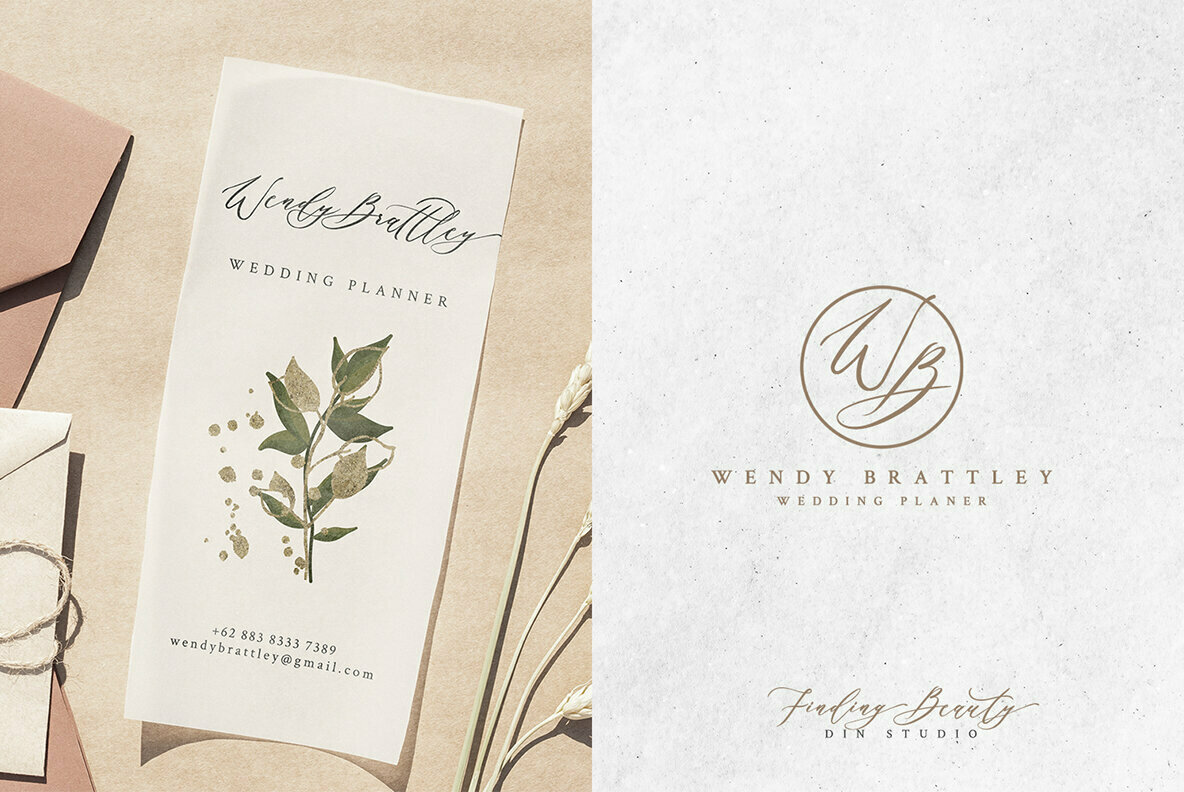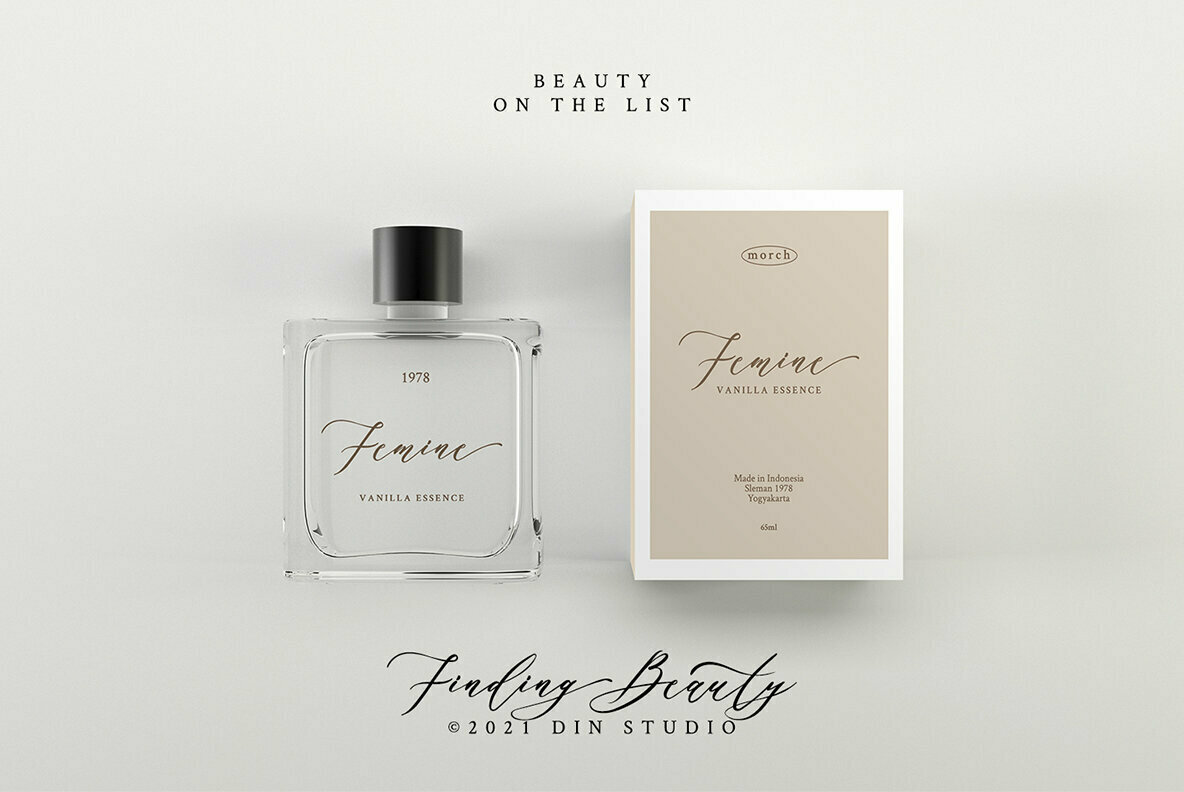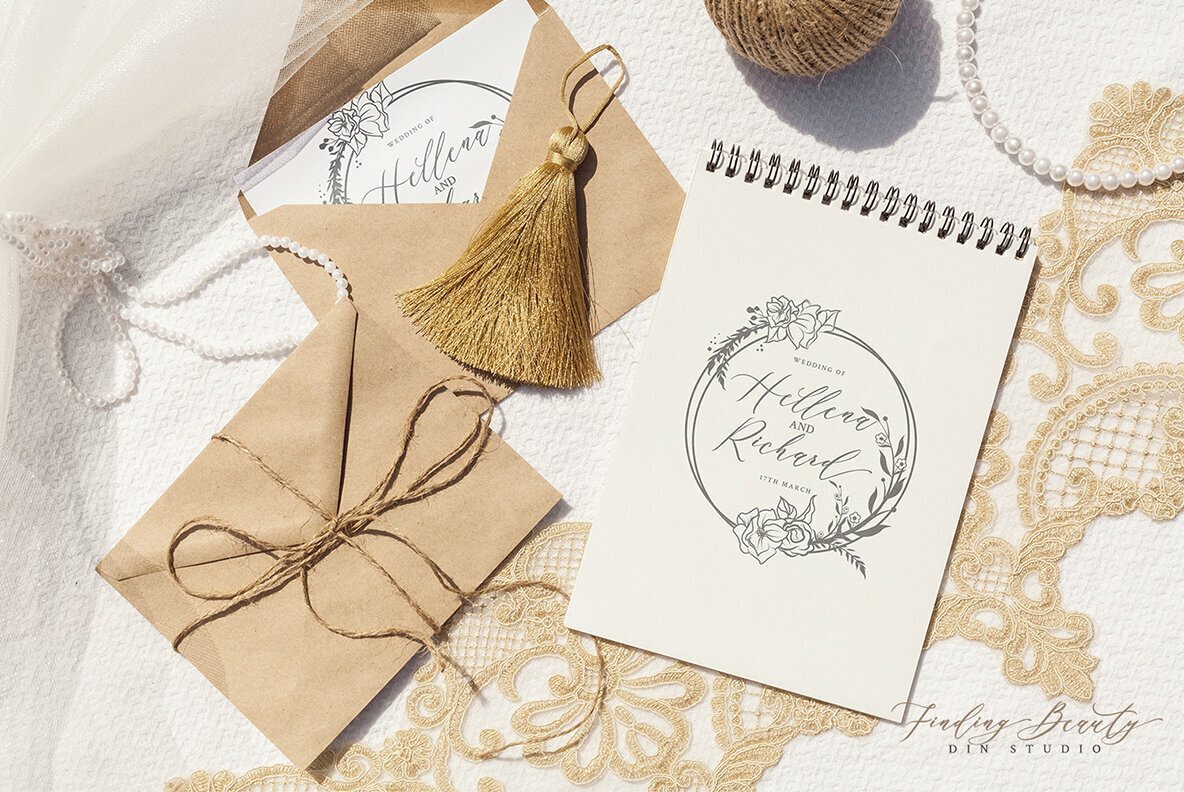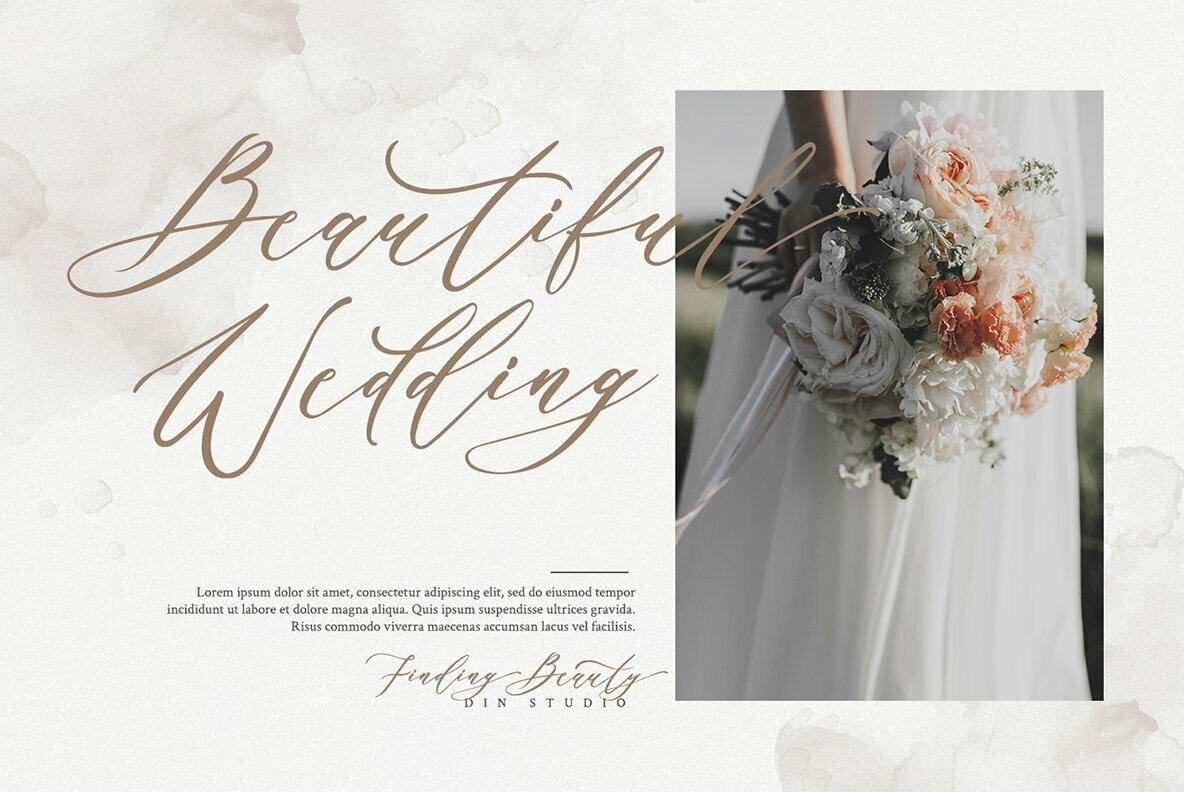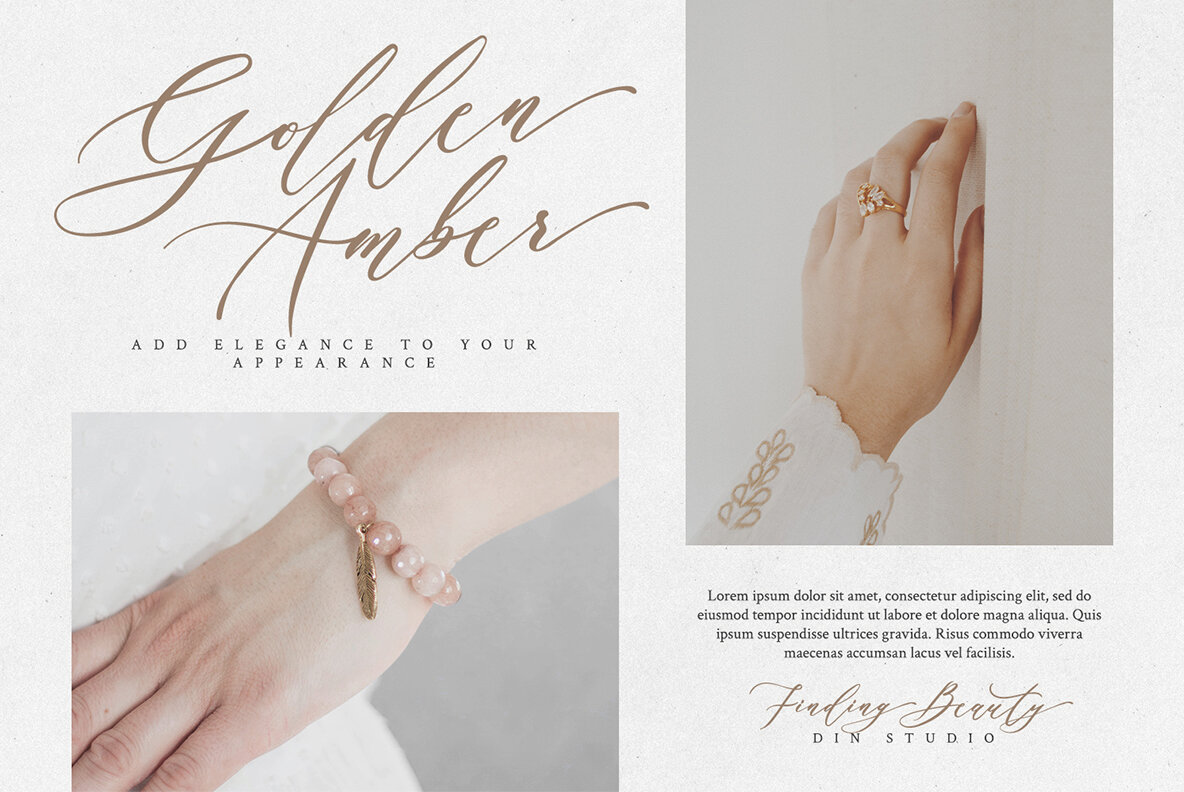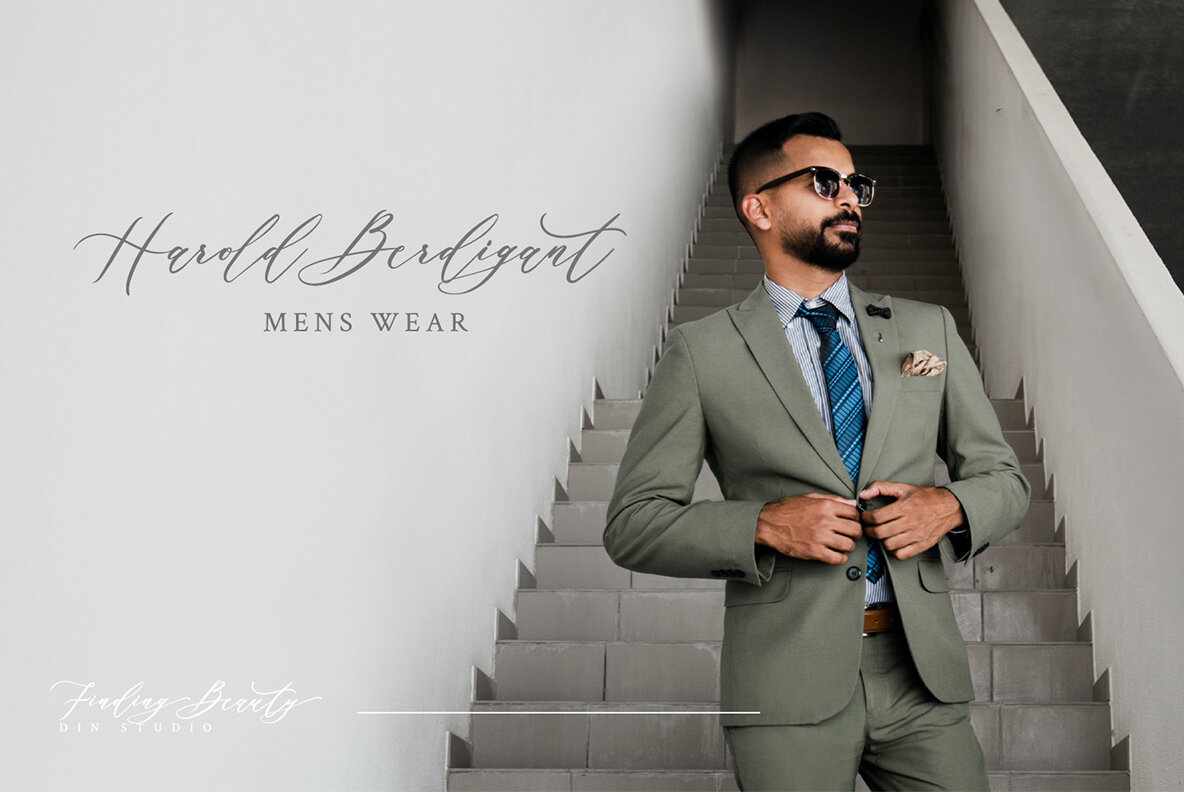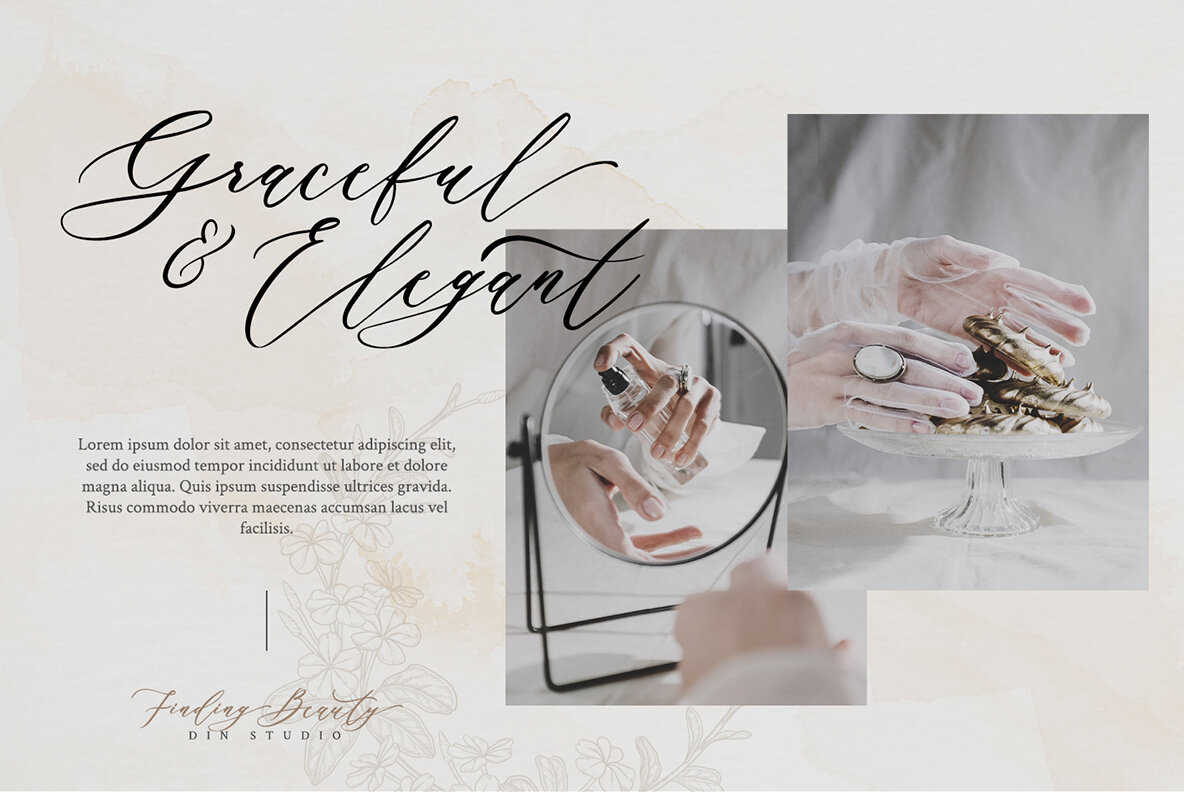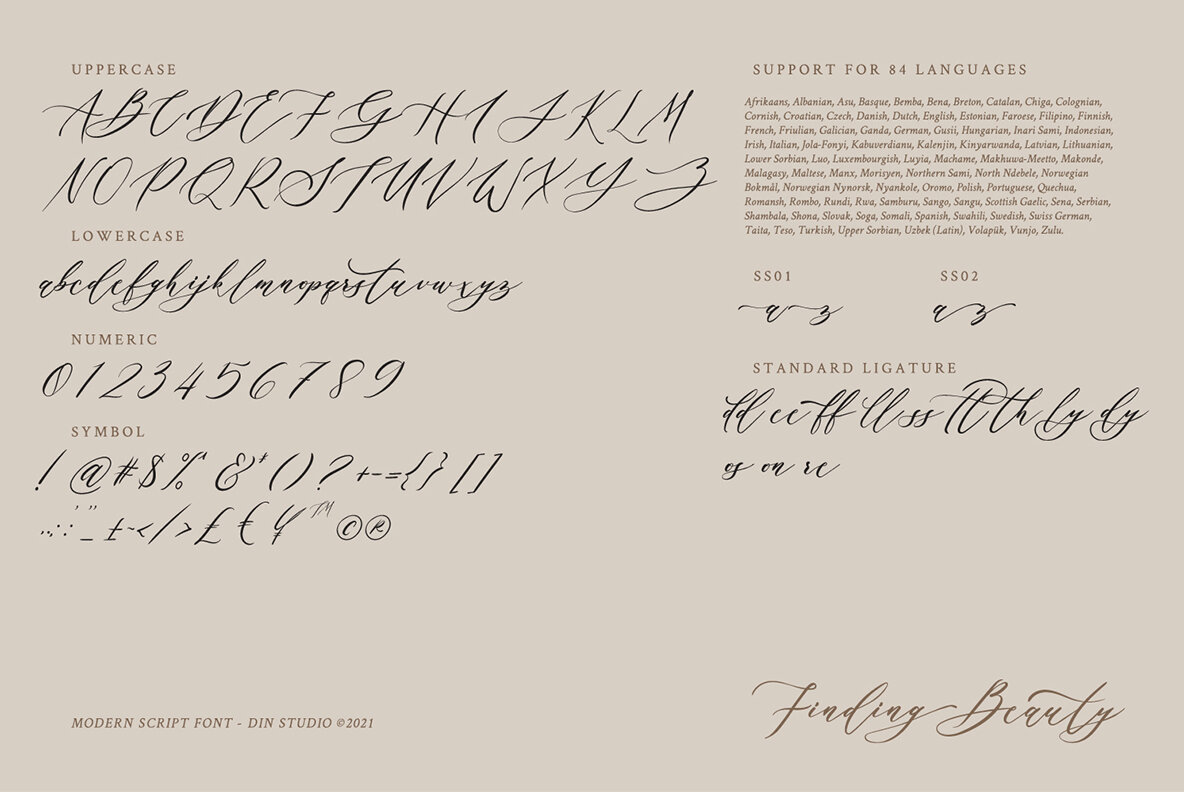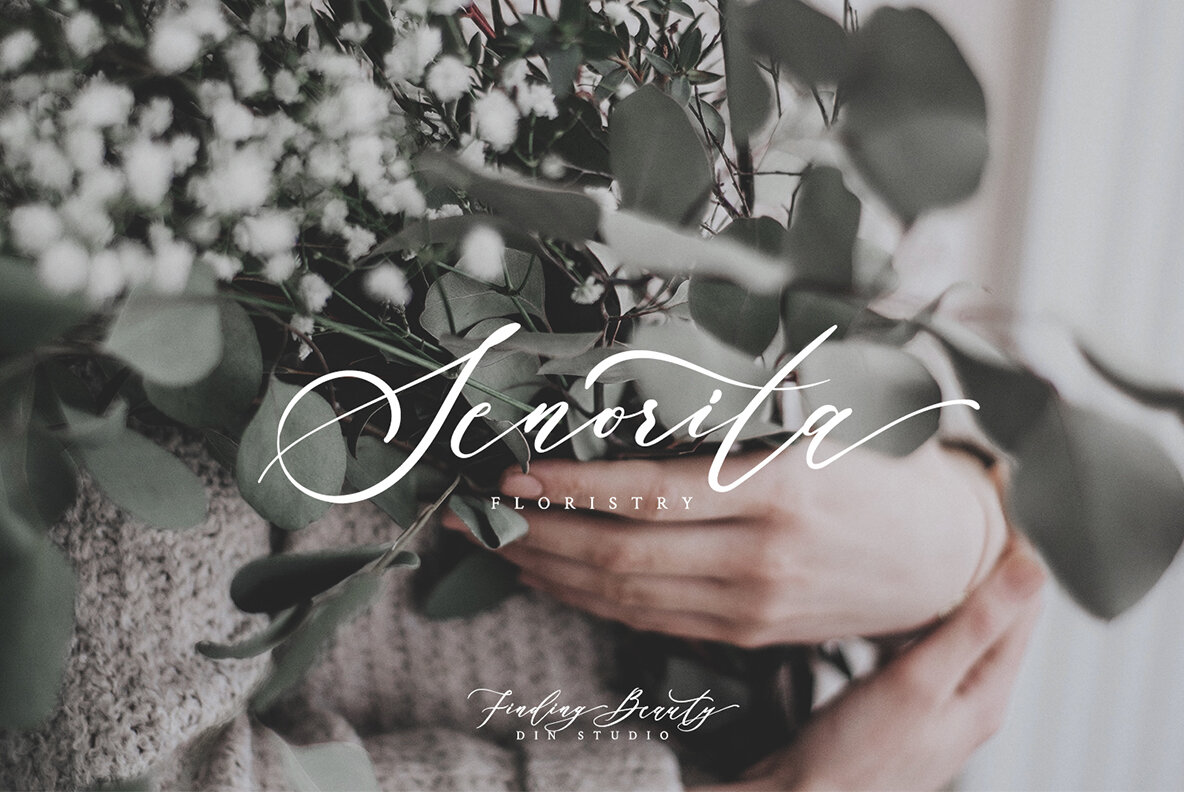
Finding Beauty Font
Finding Beauty
Script fonts hold the innate ability to add a touch of refinement to any design, and Finding Beauty epitomizes this elegance. Designed with careful craftsmanship, this font enriches projects with its graceful aesthetics. Whether you are crafting logos, business cards, or invitations, Finding Beauty offers a captivating option that appeals to a wide audience. This font seamlessly adapts to various uses, including headings, social media branding, and diverse print materials.Finding Beauty: A Graceful Script Font
Let Finding Beauty harmonize your digital and print projects with sophistication and charm.